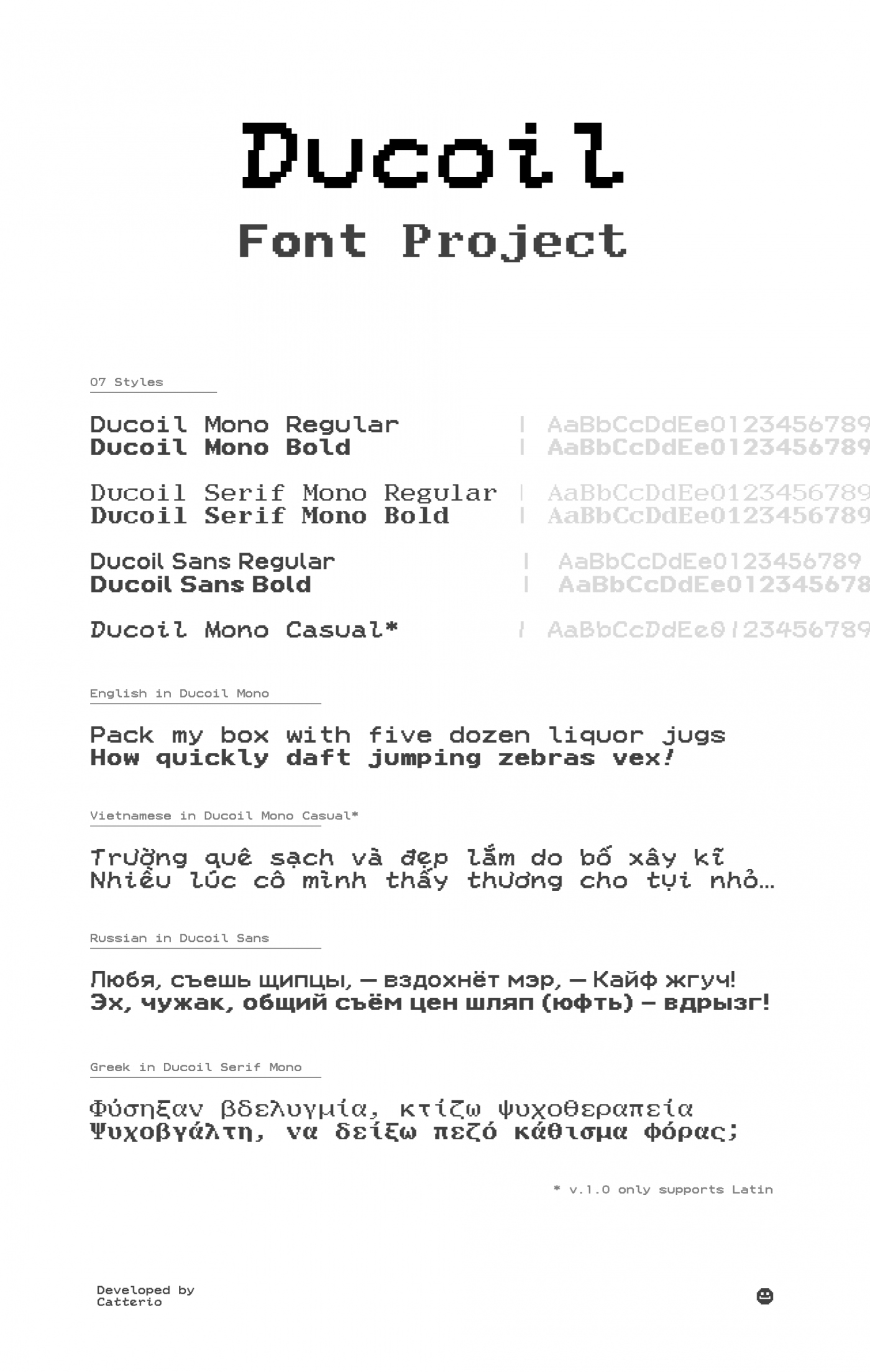
Hey again, fellas. I know it's been two or so years since my last public activity on this site. I haven't quit. In fact, I continued developing pixel fonts as a passion; trying to 'rise up from the crowd' with font projects that are seemingly out of reach with my rudimentary level of skill isn't my favourite my pastime anymore. Anyway, this one project in particular had been laying dormant in my private profile for a while now. Figured, I should share this project to the world after hiding in the caves for so long.
The Ducoil Font Project
Ducoil is a contemporary pixel font family, with dimensions 14×8px.